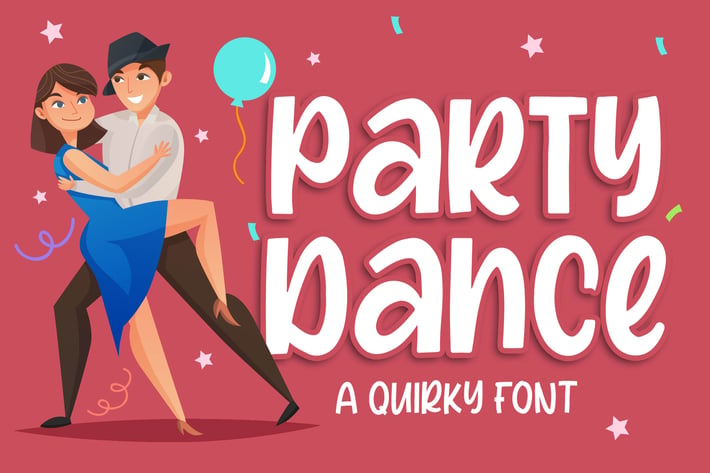
Party Dance - a Quirky Font
Introducing of our new product the name is Party Dance a Quirky Font. Party Dance inspired by Unique style this font is a fun theme very good for, book cover, poster, wedding, quote, logotype and etc